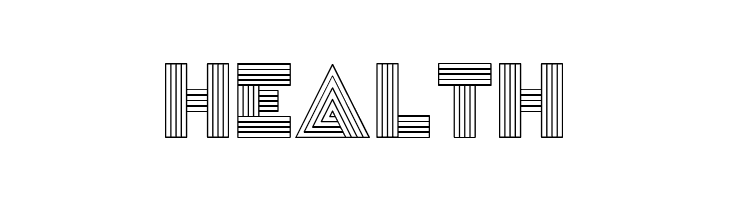
( Pixel Sagas - Neale and Shayna Davidson - www.pixelsagas.com )
A bold, decorative font with numbers and thematic symbols in square blocks.
( Vladimir Nikolic - www.coroflot.com/vladimirnikolic )
A modern, geometric font with concentric line patterns for a bold visual impact.
( Vladimir Nikolic - www.coroflot.com/vladimirnikolic )
A bold, geometric font with parallel lines creating a modern, dimensional look.
( Woodcutter - woodcutter Manero - www.woodcutter.es )
A display font composed entirely of diverse trident symbols.
( Zetafonts - www.zetafonts.com )
A thin, elongated font with high contrast and a modern, sophisticated style.
( Zetafonts - www.zetafonts.com )
A tall, narrow, and elegant font with an extra light weight, perfect for modern designs.
( Zetafonts - www.zetafonts.com )
A bold, impactful typeface with thick, uniform strokes and a modern touch.
( Zetafonts - www.zetafonts.com )
A bold, modern font with thick, uniform strokes and a slightly condensed style.
( Zetafonts - www.zetafonts.com )
A bold and heavy font perfect for impactful headlines and designs.
( Zetafonts - www.zetafonts.com )
A tall, condensed font with a modern and sleek design.